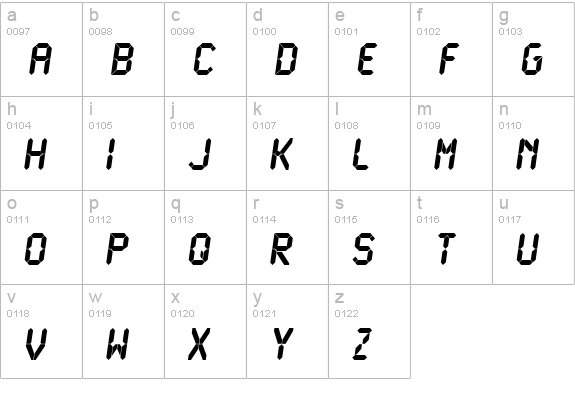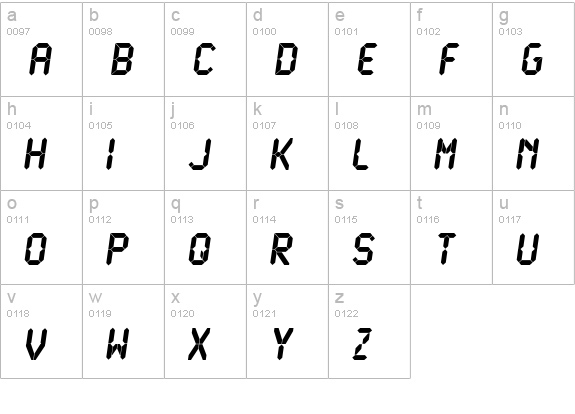
LCD Ultra Font Details
LCD Ultra is an extreme-weight, display variant in the LCD typeface family \xE2\x80\x94 well suited to extreme display use where maximum visual weight is required.
Introducing the mesmerizing LCD Ultra font - a typeface that will leave you captivated with its bold and sleek design. With its strikingly sharp edges and futuristic aesthetic, this font is perfect for adding a modern touch to any project. LCD Ultra is not only visually stunning, but it also offers unparalleled versatility. Whether you're designing a website, creating a logo, or working on a print project, this font will effortlessly elevate your work to new heights. What sets LCD Ultra apart is its ability to effortlessly blend into various design styles. From tech and gaming to fashion and advertising, this font adapts seamlessly to any context, making it a must-have for designers and creatives alike. And the best part? LCD Ultra is absolutely free! You can easily download this font at FontsMarket.com, a trusted source for high-quality fonts. With just a few clicks, you'll have access to this incredible typeface, ready to enhance your designs and bring them to life. So why wait? Unlock the potential of your creative projects with LCD Ultra. Download it today and experience the freedom of creating visually stunning designs that will leave a lasting impression.